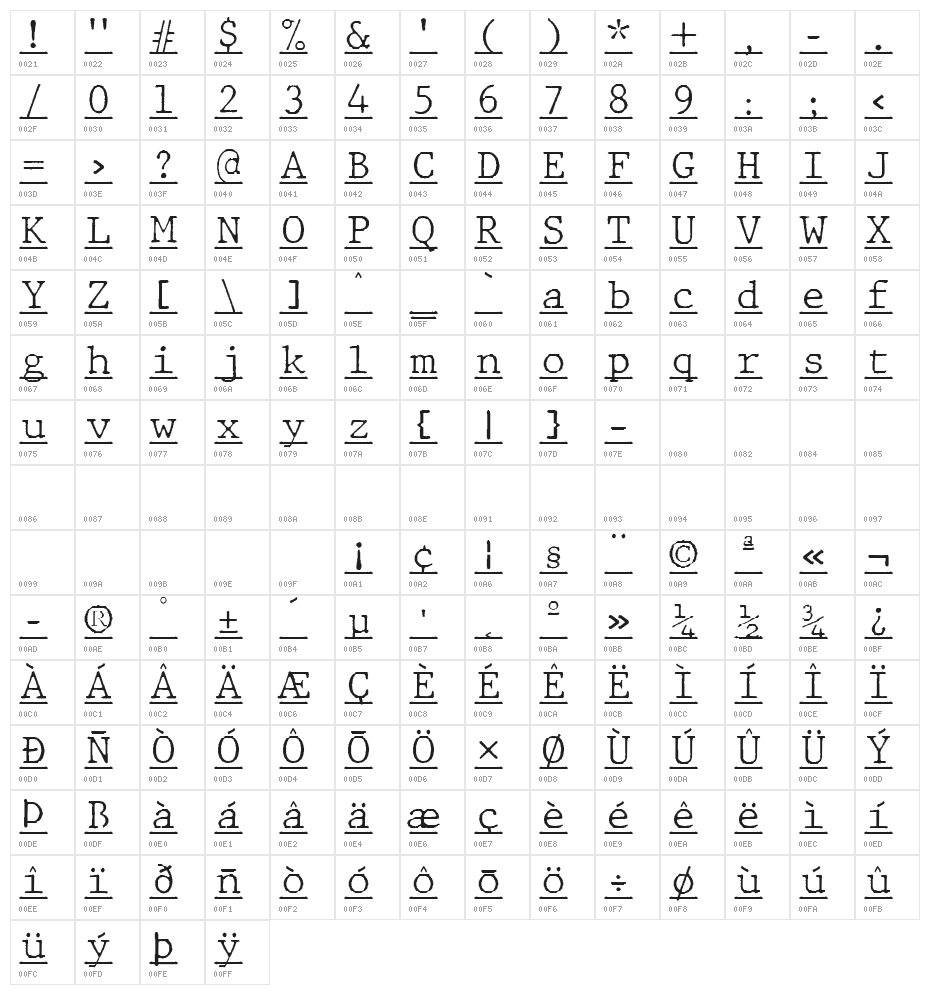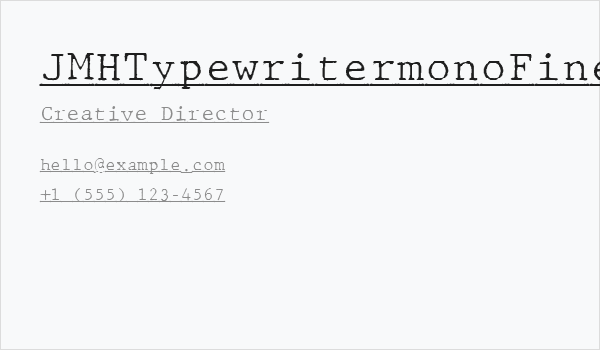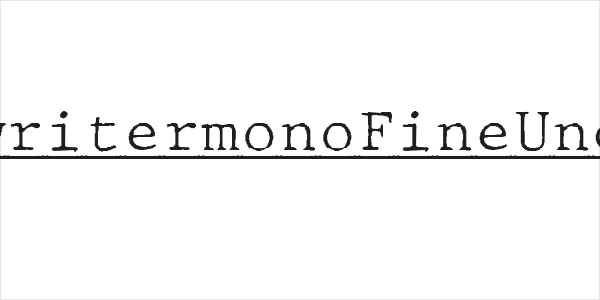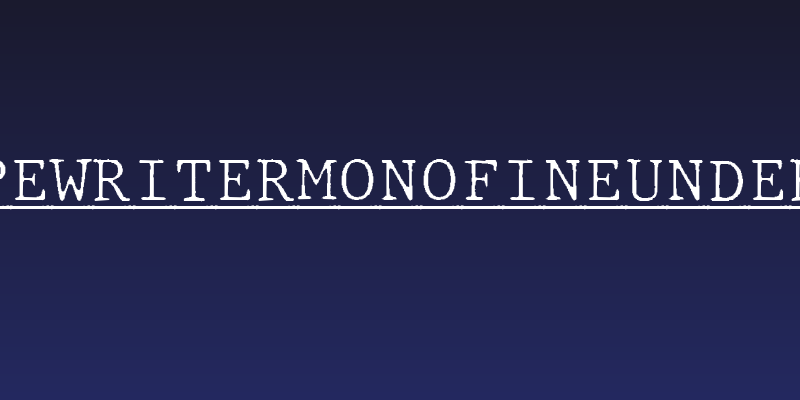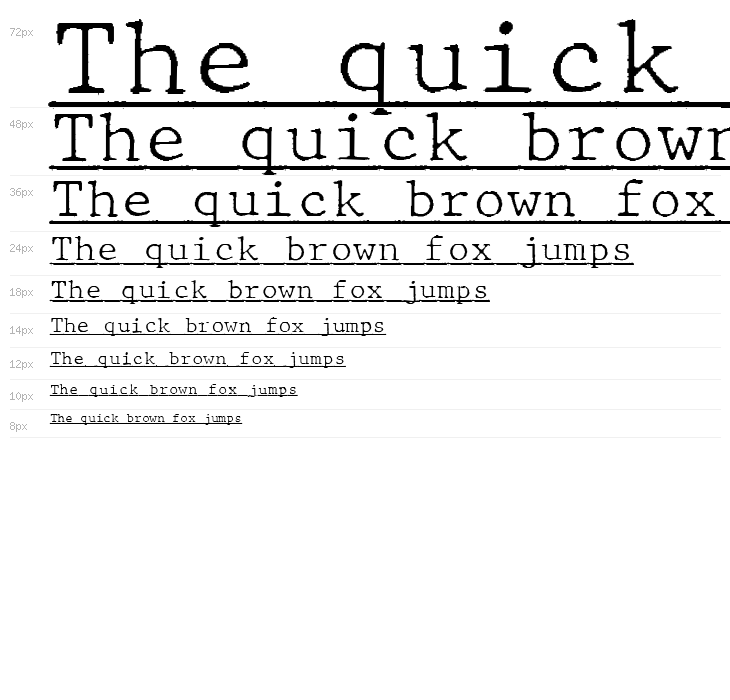
JMHTypewritermonoFineUnder-Regu Font
JMHTypewritermonoFineUnder-Regu Description
This typeface features a monospaced design reminiscent of classic typewriter fonts. Each character is evenly spaced, providing a uniform appearance across lines of text. The strokes are consistent in width, lending a mechanical and precise feel. The uppercase letters are bold and prominent, while the lowercase letters maintain a similar weight, ensuring readability. Numbers and special characters are clear and distinct, making them suitable for technical documents or coding environments. The overall aesthetic is utilitarian with a hint of nostalgia, perfect for projects that require a vintage or retro look.
Overall StyleVintage
Proposed ProjectsIdeal for coding, technical documents, retro-themed designs, and typewriter-inspired projects.